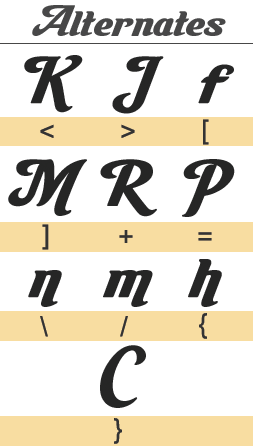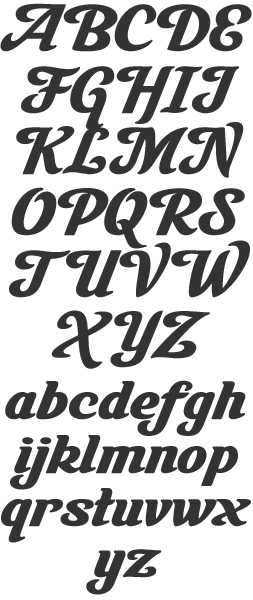
LHF Milkman Retro inspired half-script with many alternates. Use in designs where a friendly, semi-formal appearance is needed. Includes full punctuation, numbers and accent characters.